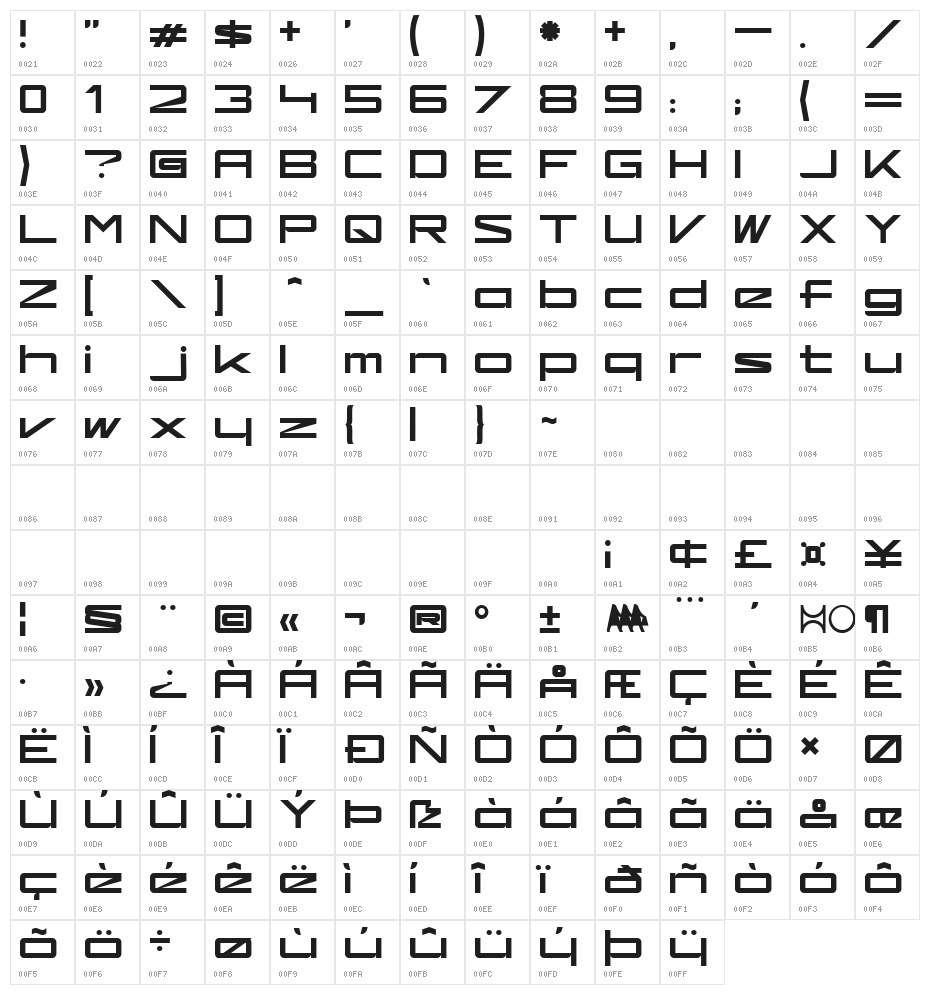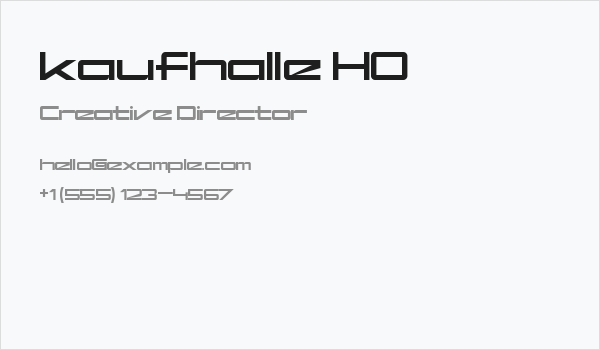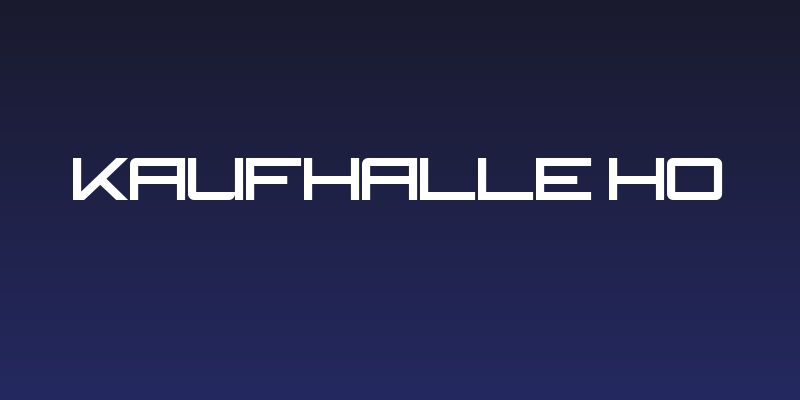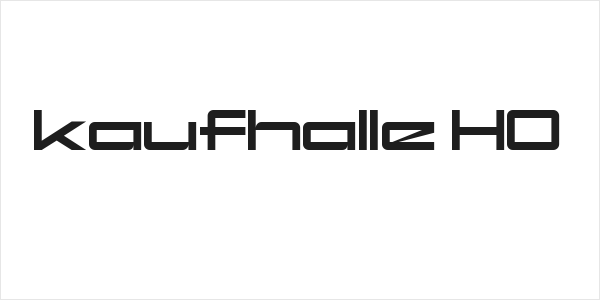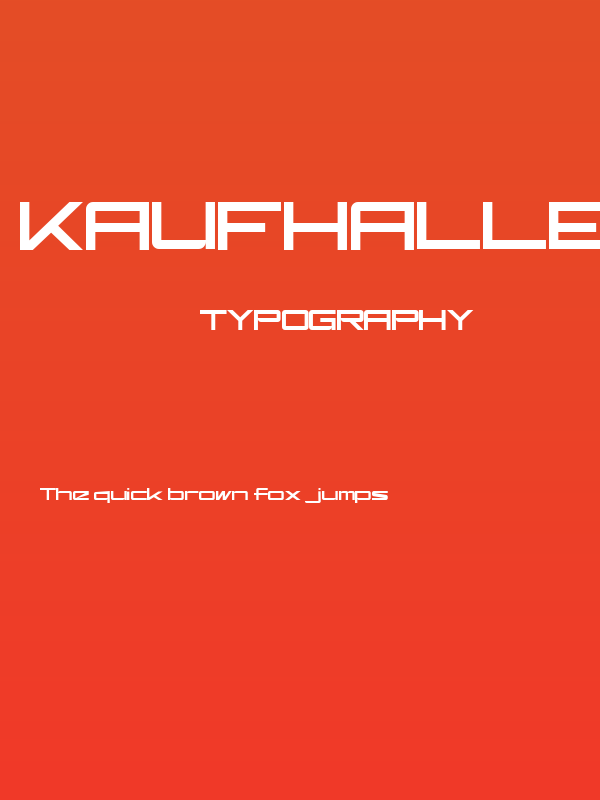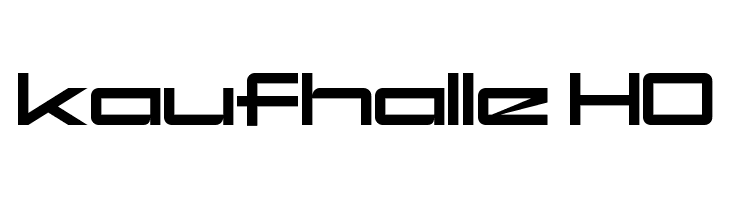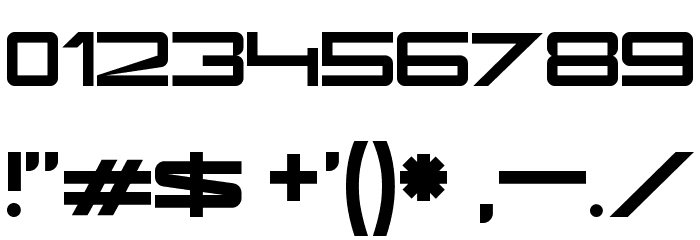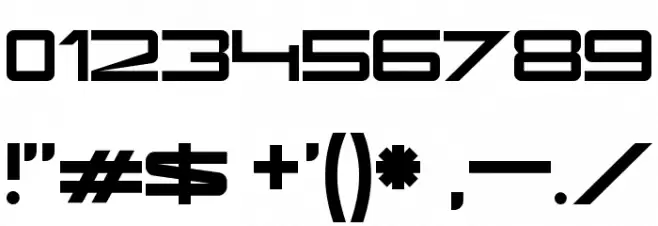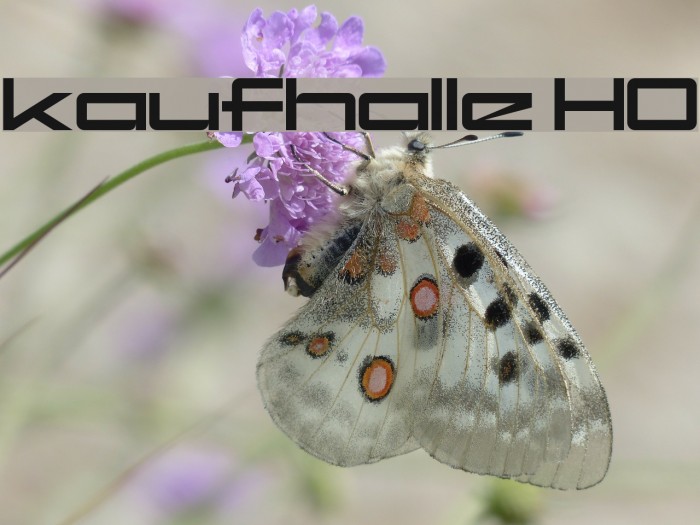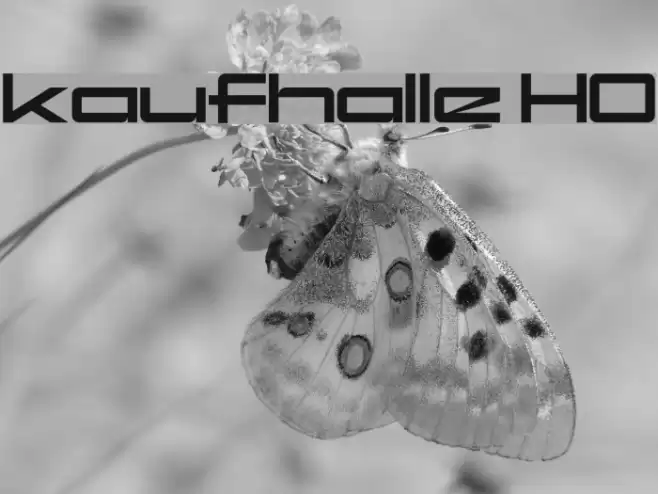
kaufhalle HO Font
kaufhalle HO Description
This font features a futuristic and geometric design, characterized by its sharp angles and clean lines. The uppercase letters are bold and structured, with a consistent height and width that give them a uniform appearance. The lowercase letters maintain the geometric style, offering a modern and sleek look. Numbers are equally bold and follow the same design principles, ensuring readability and consistency. Special characters are designed to match the overall aesthetic, making this font suitable for various applications where a modern and technical feel is desired.
| Proposed Projects | Ideal for technology branding, sci-fi themed projects, video game interfaces, and modern advertising campaigns. |